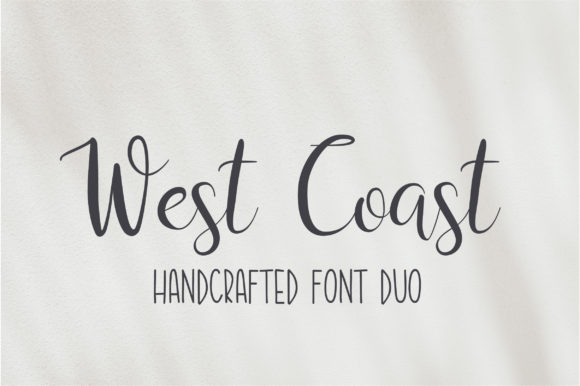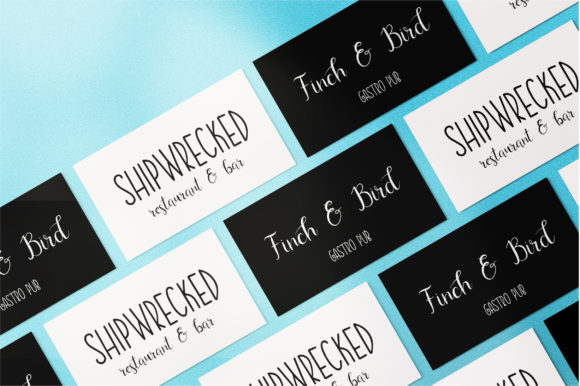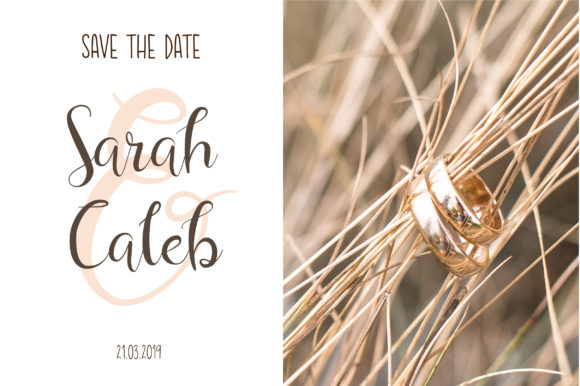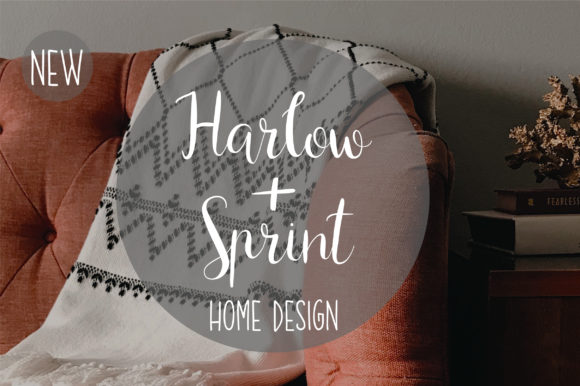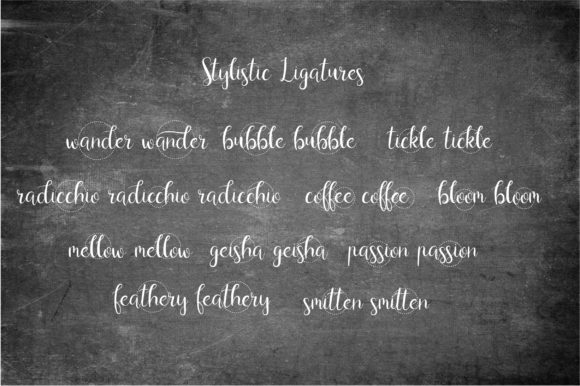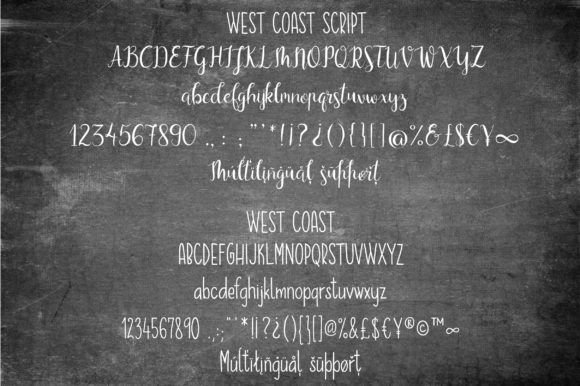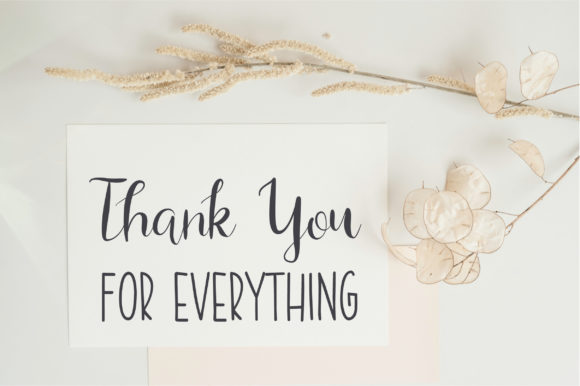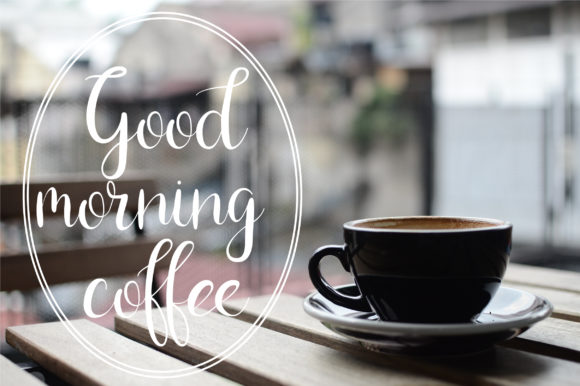
West Coast Font
About West Coast Font
The West Coast is a romantic font duo. It has a handwritten calligraphy style and is perfect for adding a natural touch to your designs.
It’s perfect for invitations, branding, packaging design and a lot more!